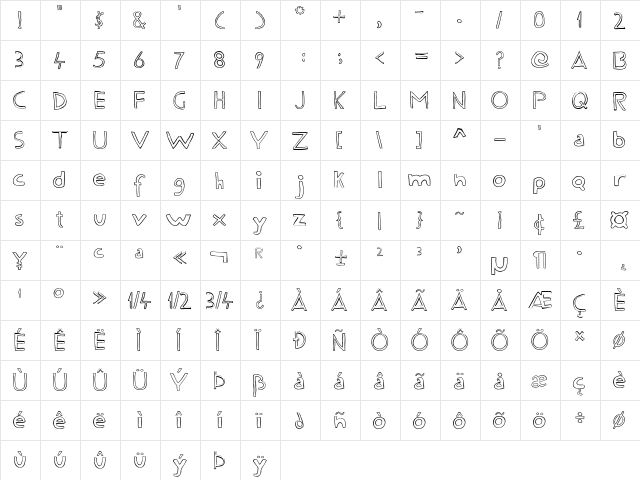
Fine Line Regular
| Foundry | Alex Petrovici |
Design Context for Fine Line Typeface
Fine Line offers clean, dependable letterforms without strong stylistic allegiance, making it a practical choice for designers who need flexibility.